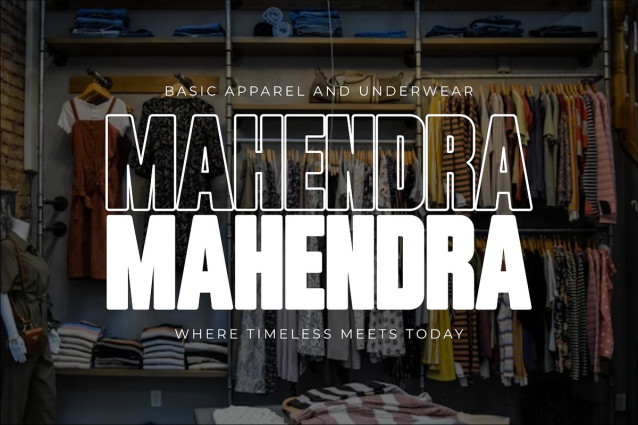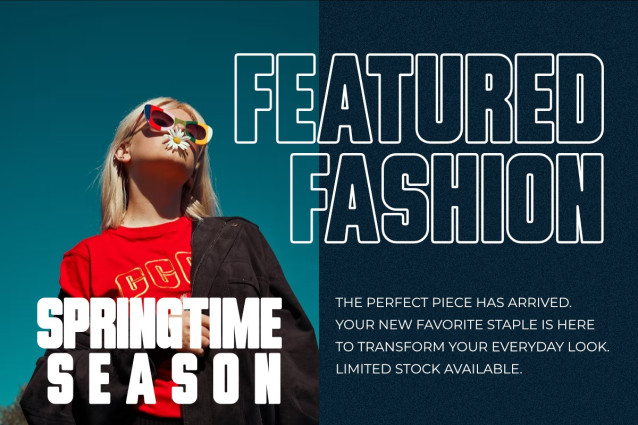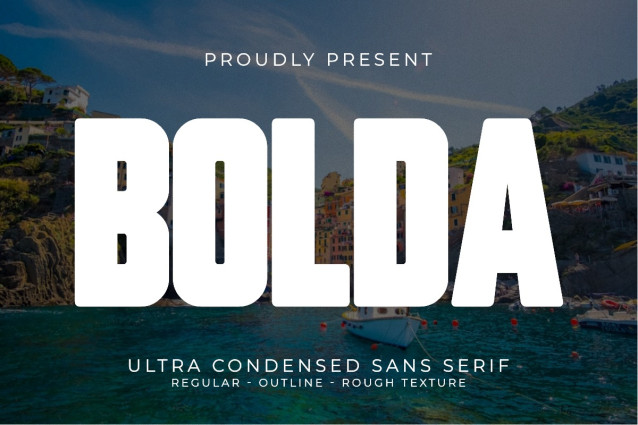
Bolda Font
Bolda Font is a multi-purpose ultra-condensed sans serif font that masterfully blends modern and vintage aesthetics. Its tall, impactful letterforms are balanced with soft, rounded corners, giving it a clean and approachable feel. With three distinct styles—Regular, Outline, and Rough Texture—this font offers immense flexibility, perfect for creating everything from sleek, modern designs to rugged, retro projects.